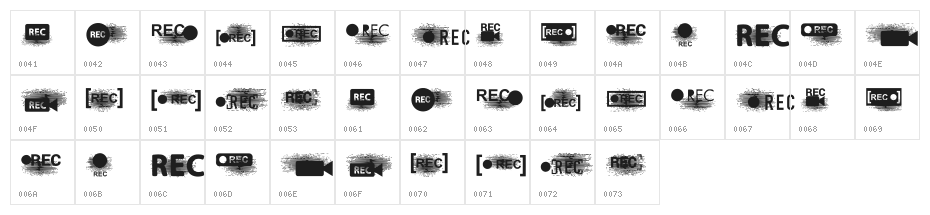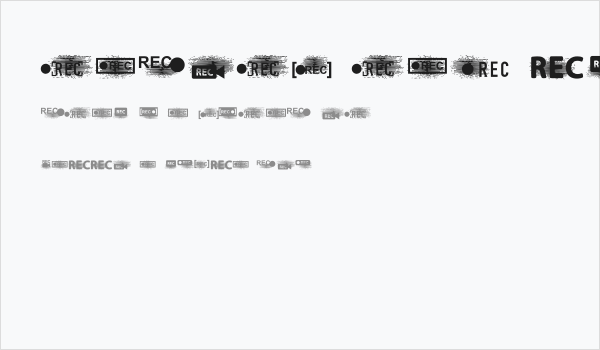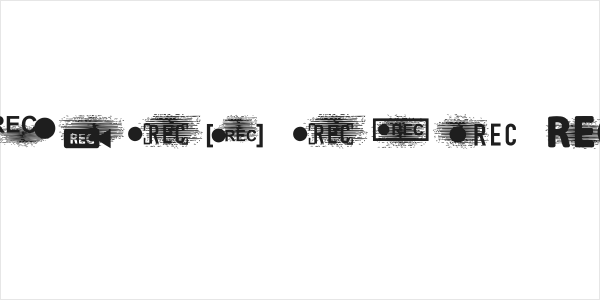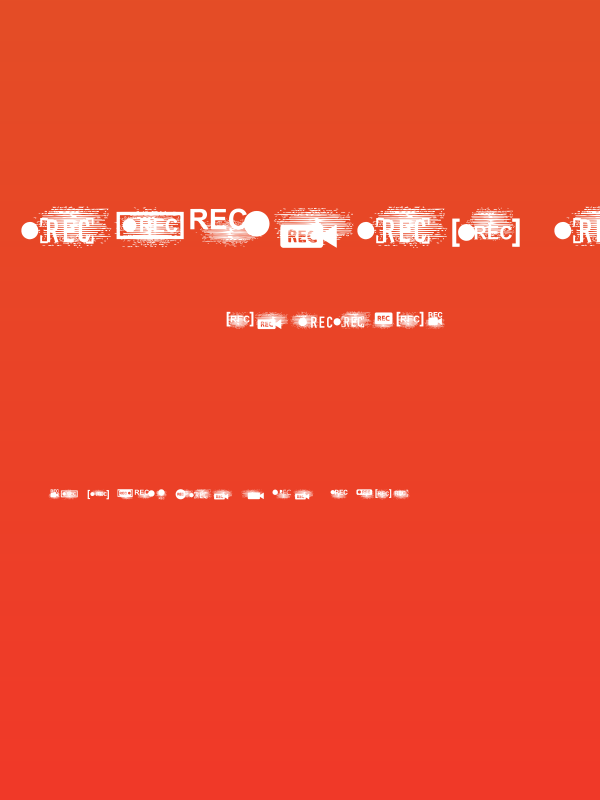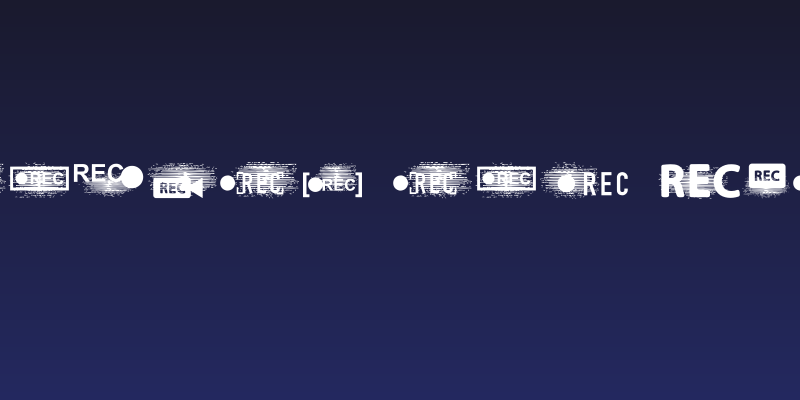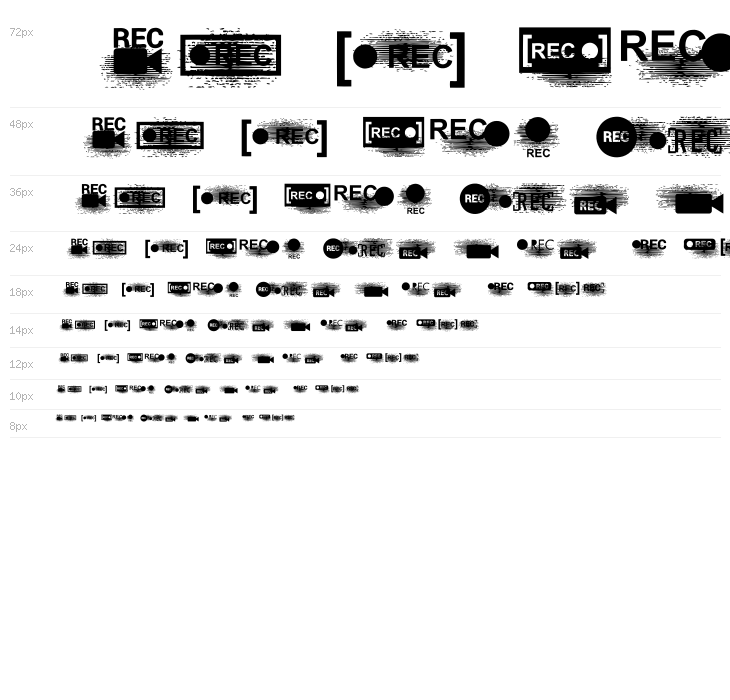
Record Regular Font
Record Regular Description
This design features a bold, distressed style that mimics the appearance of a recording indicator, often seen in video cameras or recording devices. The characters are enclosed in various shapes like circles and rectangles, with a grunge texture that adds a sense of urgency and rawness. The design includes symbols such as a recording dot and brackets, enhancing the theme of capturing or documenting moments. The overall look is dynamic and eye-catching, suitable for projects that require a bold statement or a sense of immediacy.
| Overall Style | Modern, Grunge |
| Use Case | Logos, Headlines, Posters |
| Proposed Projects | Ideal for video production branding, film festival posters, music album covers, or any project needing a bold, dynamic look. |